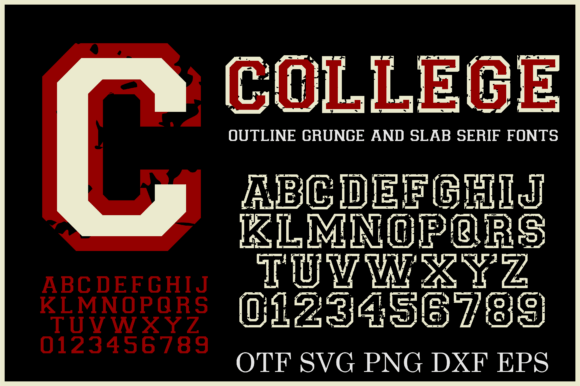
Introducing College Grunge Font: A Powerful Duo for Sports, Retro, and Typographic Designs
In the world of typography, fonts play a crucial role in conveying the tone and personality of a design. For creatives looking to add a touch of nostalgia and energy to their projects, the College Grunge Font duo is an excellent choice. This comprehensive article will explore the features, benefits, and applications of College Grunge Font and College Outline Grunge & Slab Serif, a pair of classic varsity-style fonts that are perfect for sports, retro, and typographic designs.
College Grunge Font: A Rough, Distressed Texture
The College Grunge Font features a rough, distressed texture that brings a vintage and energetic feel to any design. This font is perfect for creatives who want to add a touch of nostalgia and playfulness to their projects. The grunge texture gives the font a worn, retro look that’s reminiscent of classic sports jerseys, posters, and flyers from the 80s and 90s.
With its rough, distressed texture, the College Grunge Font is ideal for designs that require a bold, attention-grabbing aesthetic. Whether you’re working on a sports-themed project, a retro-inspired poster, or a typographic design, this font is sure to make a statement.
Key Features of College Grunge Font:
- Rough, distressed texture for a vintage and energetic feel
- Perfect for sports, retro, and typographic designs
College Outline Grunge & Slab Serif: A Clean and Bold Companion
The College Outline Grunge & Slab Serif font is a clean and bold slab serif that’s perfect for logos, posters, apparel, and branding projects. This font features a crisp, modern design that’s ideal for creatives who want to add a touch of sophistication and elegance to their projects.
With its clean lines and bold typography, the College Outline Grunge & Slab Serif font is perfect for designs that require a high level of legibility and impact. Whether you’re working on a logo, a poster, or a branding project, this font is sure to make a lasting impression.
Key Features of College Outline Grunge & Slab Serif:
- Clean and bold slab serif design
- Perfect for logos, posters, apparel, and branding projects
A Powerful Combination: College Grunge Font and College Outline Grunge & Slab Serif
When used together, the College Grunge Font and College Outline Grunge & Slab Serif font create a powerful combination that’s perfect for sports, retro, and typographic designs. The rough, distressed texture of the College Grunge Font pairs perfectly with the clean, bold design of the College Outline Grunge & Slab Serif font, creating a visually appealing contrast that’s sure to grab attention.
This font duo is ideal for creatives who want to add a touch of nostalgia and energy to their designs, while also conveying a sense of sophistication and elegance. Whether you’re working on a sports-themed project, a retro-inspired poster, or a typographic design, the College Grunge Font and College Outline Grunge & Slab Serif font are the perfect choice.
Design Applications for College Grunge Font and College Outline Grunge & Slab Serif:
- Sports-themed designs (posters, jerseys, logos)
- Retro-inspired designs (posters, flyers, brochures)
- Typographic designs (quotations, phrases, titles)
- Branding projects (logos, business cards, letterheads)
- Apparel designs (t-shirts, hoodies, hats)
In conclusion, the College Grunge Font and College Outline Grunge & Slab Serif font are a powerful duo that’s perfect for sports, retro, and typographic designs. With their rough, distressed texture and clean, bold design, these fonts offer a versatile and stylish solution for creatives looking to add a touch of nostalgia and energy to their projects.
Whether you’re working on a sports-themed design, a retro-inspired poster, or a typographic project, this font duo is sure to make a lasting impression. With their wide range of applications and compatibility with various formats, the College Grunge Font and College Outline Grunge & Slab Serif font are an excellent addition to any designer’s toolkit.